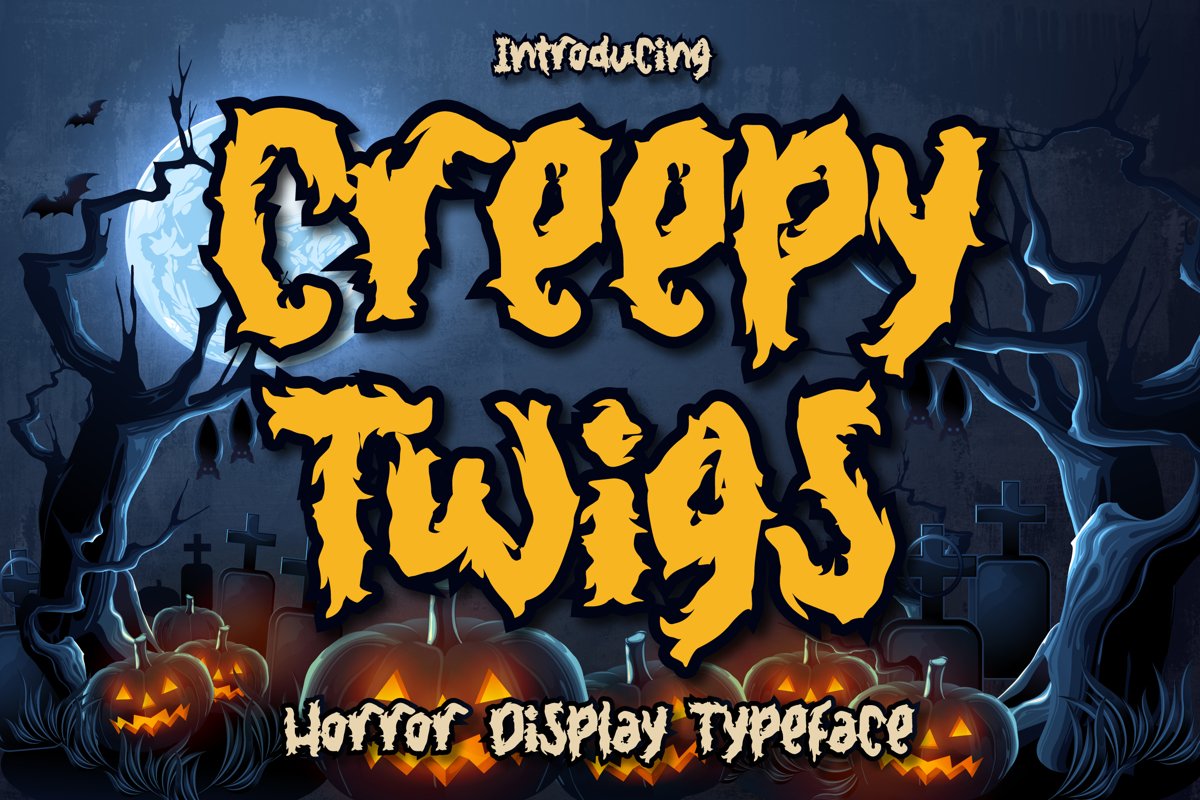
Creepy Twigs - Horror Display Typeface
Creepy Twigs
we just introducing of our new product the name is Creepy Twigs - horror display typeface. Creepy Twigs typeface is good for halloween poster, horror poster, cartoon, t shirt, childrenbook, book cover, etc.